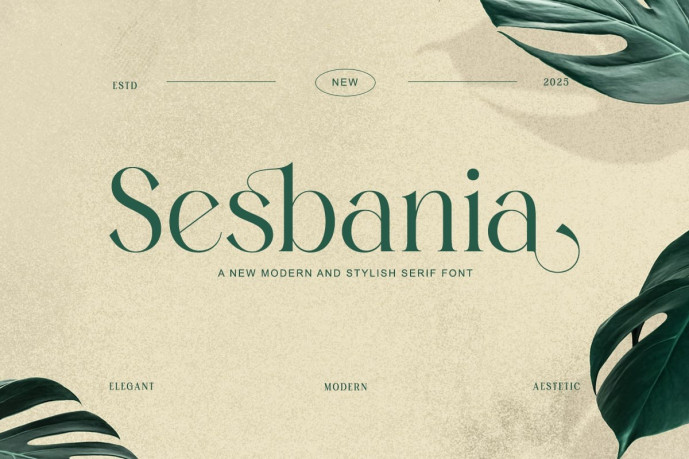
Sesbania Serif Font
Sesbania Serif Font is a modern serif display font that blends simplicity with natural elegance. Its clean forms, balanced contrast, and subtle ligatures make it perfect for branding, packaging, and editorial design. With its organic touch and contemporary tone, Sesbania brings refined sophistication to every project.
Features:
• Regular & Italic
• Uppercase & Lowercase Letters
• Alternates & Ligatures
• Multilingual Support